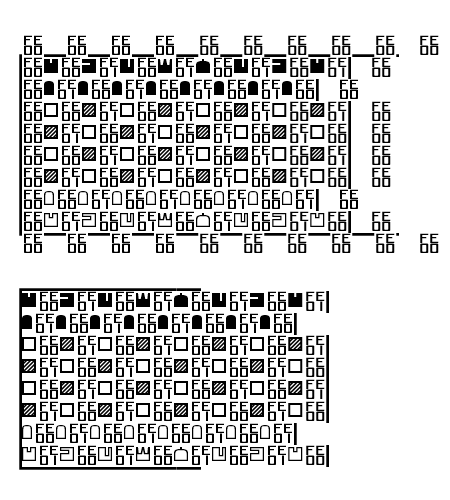
Quest text 2017 font for experimental chess encoding
Some readers may have noticed the discussion about chess diagrams in the Unicode mailing list.
The thread is entitled Proposal to add standardized variation sequences for chess notation.
Well I have tried to implement the proposal starting with a copy of my Quest text font and producing a Quest text 2017 font so as not to alter the original font.
Please know that the glyphs for U+FE00 and U+FE01 are my own design. I think that U+FE00 and U+FE01 may possibly be supposed to be zero width, but I made them as they are so that I could typeset the diagrams more easily and be able to test the font effectively.
Here are two images, exported from Serif PagePlus X7 using the Quest text 2017 font that I produced using FontCreator 8.0 earlier today.
Here is the OpenType code that I used. I do not know whether liga is the correct table to use, but I used it as I knew that I was able to easily test the font in Serif PagePlus X7 if I used liga.
Please know that I am unsure as to whether the latn is the correct way to have made this font. I simply started with a copy of the OpenType code from a font that I made some time ago and carried on from there and it worked.
An experiment.
I have the text for the above diagrams in the PagePlus X7 desktop publishing program on my computer.
The experiment is to copy the text from there and paste it twice into this web page, once in text, once in a code panel.
After that, to clear the clipboard on my computer by copying and pasting something entirely different elsewhere, then to return to this forum and try to copy and paste the text for the diagrams back to my computer, to establish if I can round-trip Unicode code for the diagrams.
Well, now to post and then to try the round-trip.
Yes the experiment worked very well, at first, but there is an issue.
I logged off before I tried it so that my test was as an ordinary user of the forum.
It was interesting in that I pasted into PagePlus X7 then formatted to the Quest text 2017 font then switched on the liga substitution in PagePlus X7.
Later I tried, after pasting into PagePlus X7, switching on the liga substitution in PagePlus X7 and then formatted to the Quest text 2017 font and it still worked!
So I switched liga off in PagePlus X7, I moved one of the white knights in the diagram, switched on liga to display the result, switched liga off and then copied to the clipboard.
So it may well not be something to do with the font as such, but I thought that I would post here in the hope that some readers could please check the font and maybe try it out in some other applications.